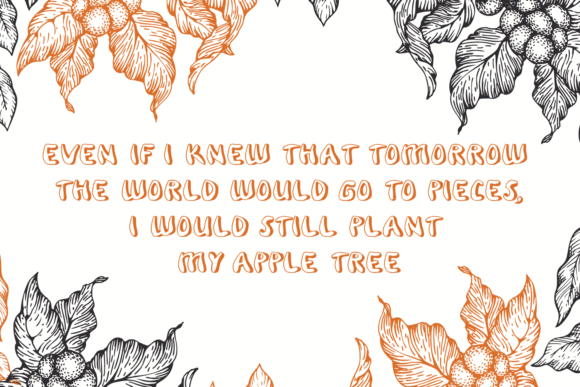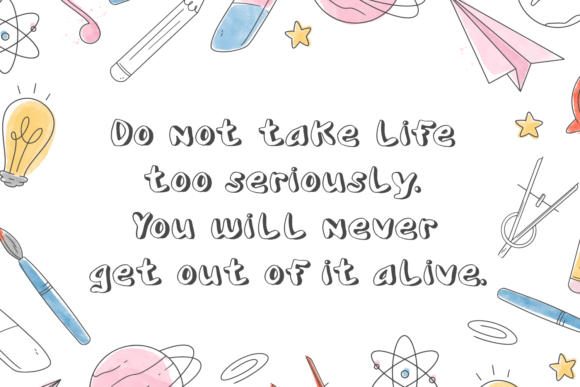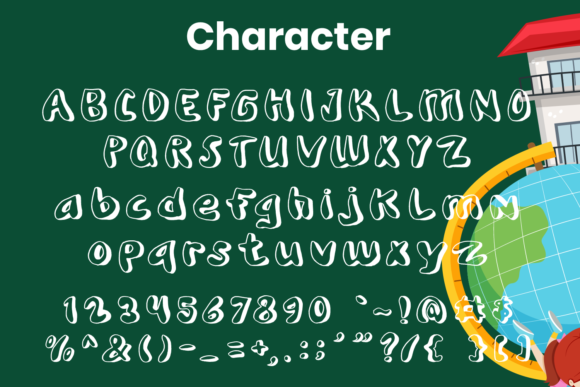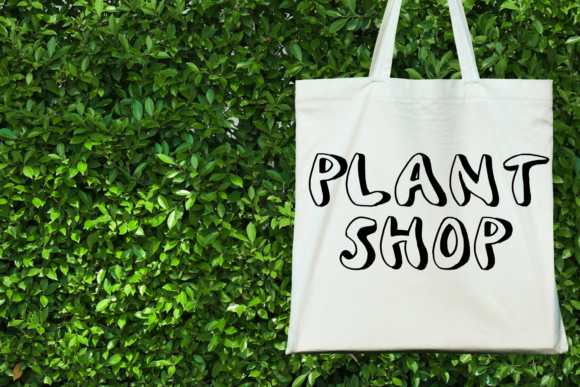
Game Comic Font – Free Download
Introduction to Game Comic Font
Game Comic is a cute and thick lettered display font.
Whether you use it for cartoon related designs, children games or just any creation that requires a lovely touch, this font will be an amazing choice .
Key Features of Game Comic Font
Why Choose Game Comic Font?
Game Comic Font offers exceptional quality and versatility, making it a valuable addition to your design toolkit. Whether you’re creating for personal projects or commercial use, Game Comic Font delivers professional results.